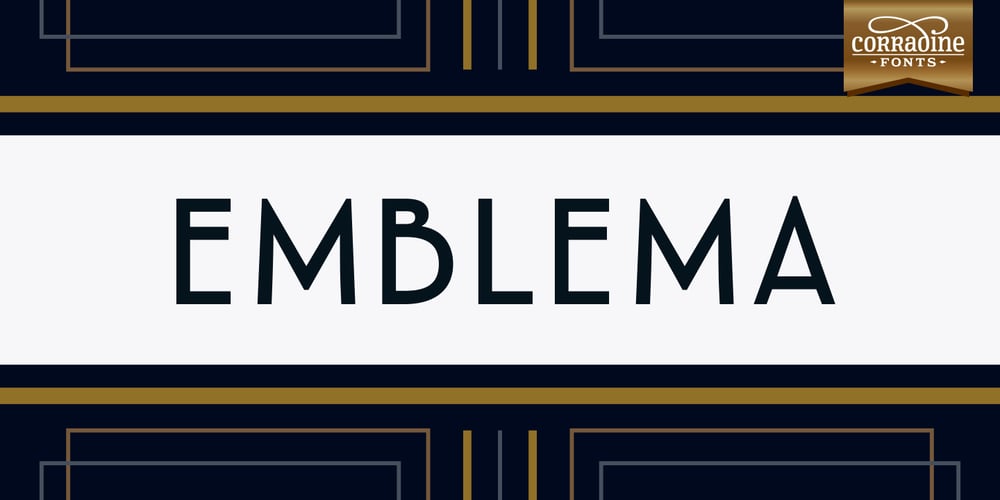
Emblema Font Family was designed by Duván Cárdenas and published by Corradine Fonts. Emblema contains 12 styles and family package options. Emblema is an evocative font that exudes Art Deco style from early decades of the 20th Century. Its geometric shapes give a clean and modern look to any design where it is applied. Emblema was designed in 12 subtly different weights and is ideal for achieving the same weight in a single word when using different point sizes. Open Type users can access an extensive set of alternative and ornamental characters including 3 different size sets of caps, providing the utmost in versatility.